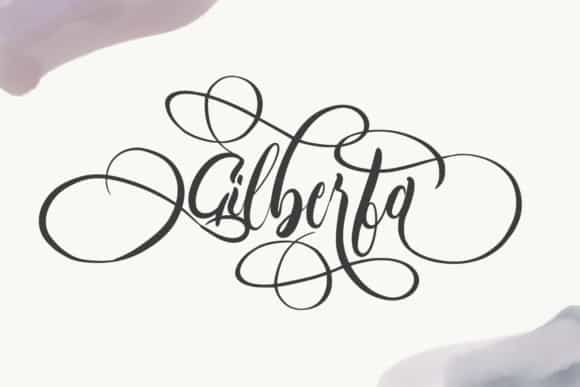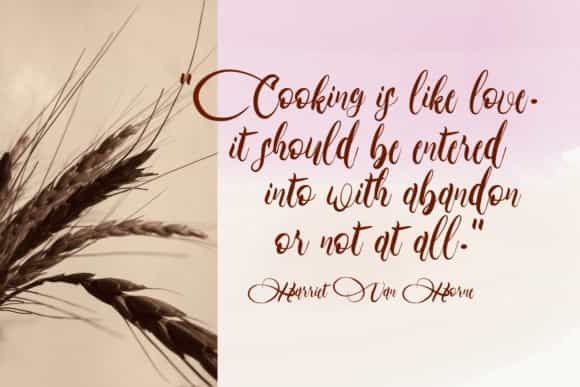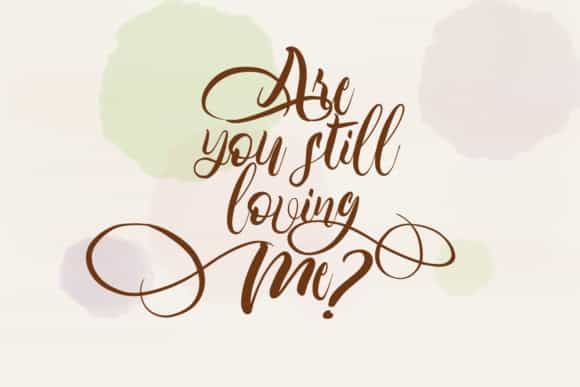
Gilberta is a beauty font that even when you type it out in a blank space, it will automatically beautify. Indeed, that is all there is to it. And it’ll be a great font pair for any project that has the word beauty in its concept list. A no-makeup makeup definition for your design touch.